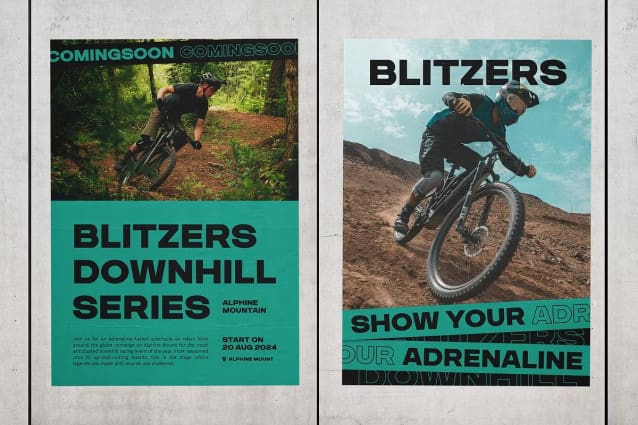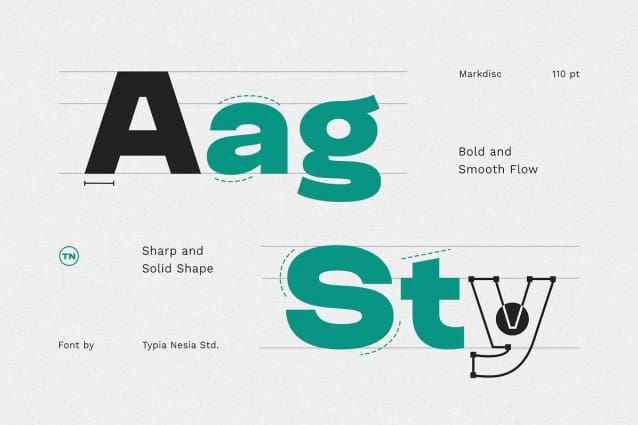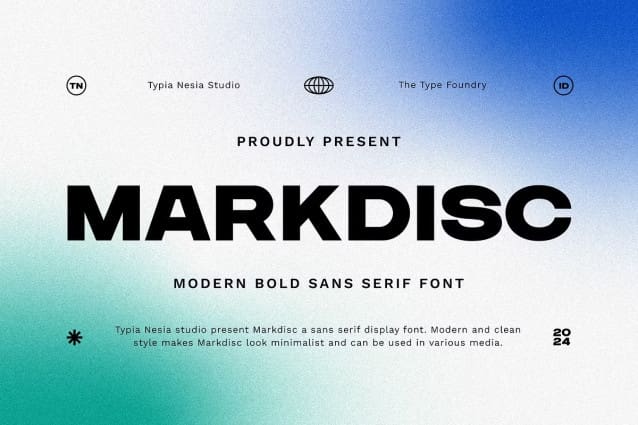
Markdisc Font
Markdisc Font is a Modern Bold Sans Serif font that embodies contemporary design with its strong and confident appearance. Its clean lines and bold strokes make it perfect for conveying a sense of modernity and professionalism. This versatile font is suitable for various design applications, such as branding and logo design, product packaging, website design, digital and print advertising, social media graphics, corporate presentations, magazine layouts and headlines, event signage and posters, menu design, branded merchandise, and app interfaces.
Markdisc Font infuses a sense of Modern and Bold into any design. Its lively typeface adds Strong character to various applications. The font comes with ligatures and alternates to enhance the fluidity and diversity of its characters, and include comprehensive support for both uppercase and lowercase letters, punctuation marks, and numerals. These features provide flexibility and creative options for designing impactful visuals. Additionally, multilingual support ensures accessibility across different languages and regions. Crafted with expertise in modern typography, Metashift reflects a mastery of design principles and contemporary aesthetics, ensuring that it meets the demands of today’s creative projects.